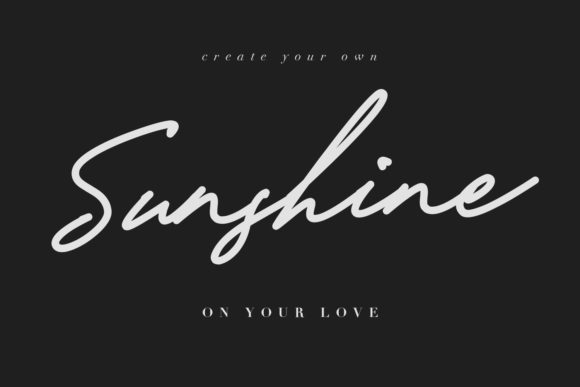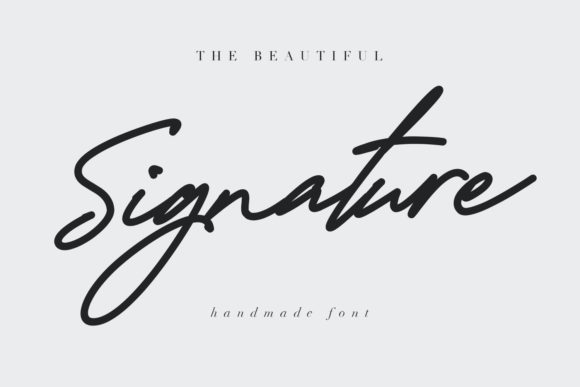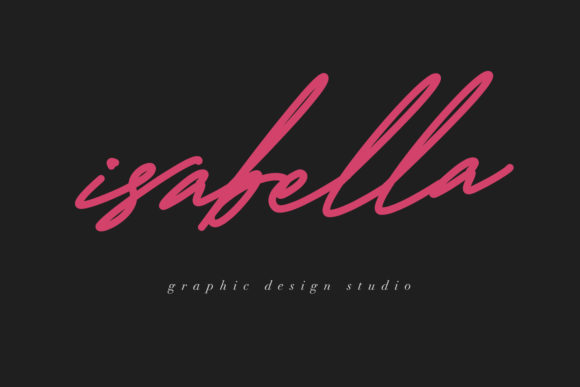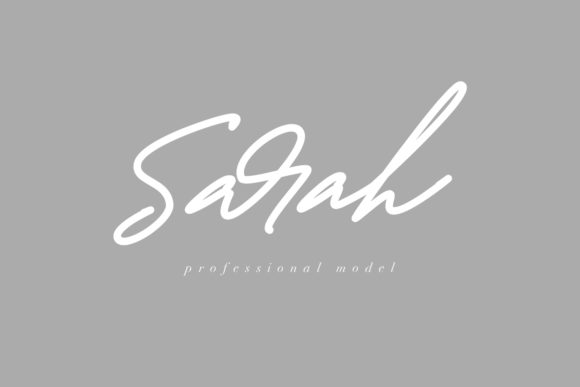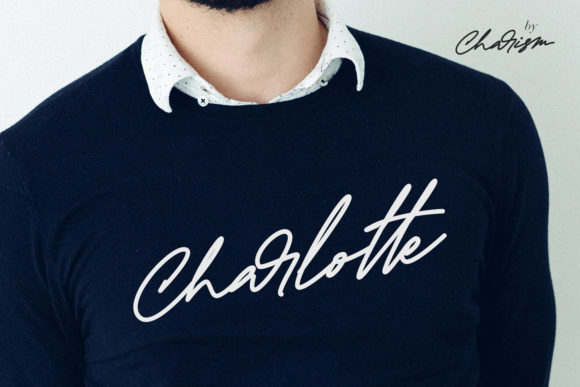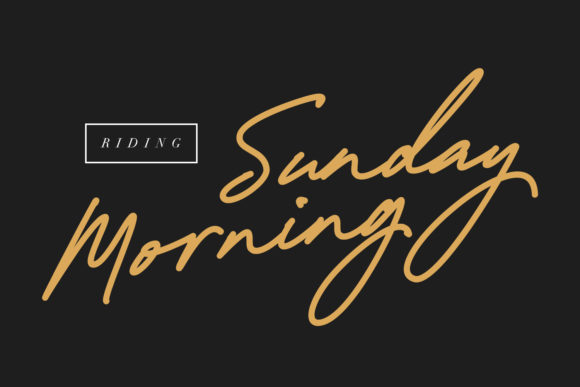
Introduction to Charism Font
Charism is inspired by classic typography and brings its own unique style to any design project.
This fantastic script font is best suited for headlines of all sizes, as well as for blocks of text that have both maximum and minimum variations Whether itโs for web, print, moving images or anything else โ Charism will look spectacular.
Key Features of Charism Font
Why Choose Charism Font?
Charism Font offers exceptional quality and versatility, making it a valuable addition to your design toolkit. Whether you’re creating for personal projects or commercial use, Charism Font delivers professional results.